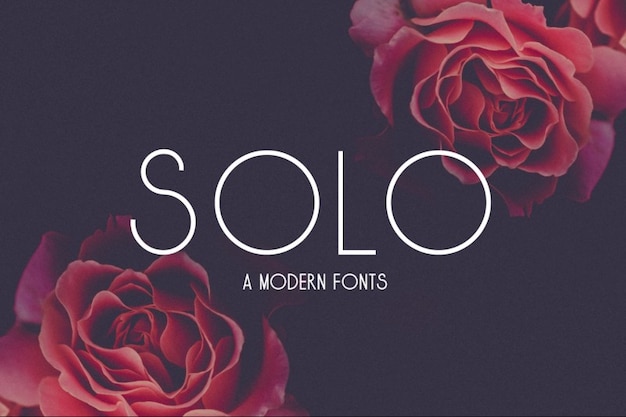
Solo Font
Drizy Studio
Solo is a font that exemplifies simplicity and modernity. With its clean lines and geometric precision, it adds a touch of contemporary sophistication to any design. Whether you're working on branding, editorial layouts, or web projects, Solo's minimalist charm shines through. Its straightforward shapes and elegant style make it an excellent choice for those who appreciate the power of simple, geometric design elements. In a world of complexity, Solo brings clarity and a sense of balance to your creative work.